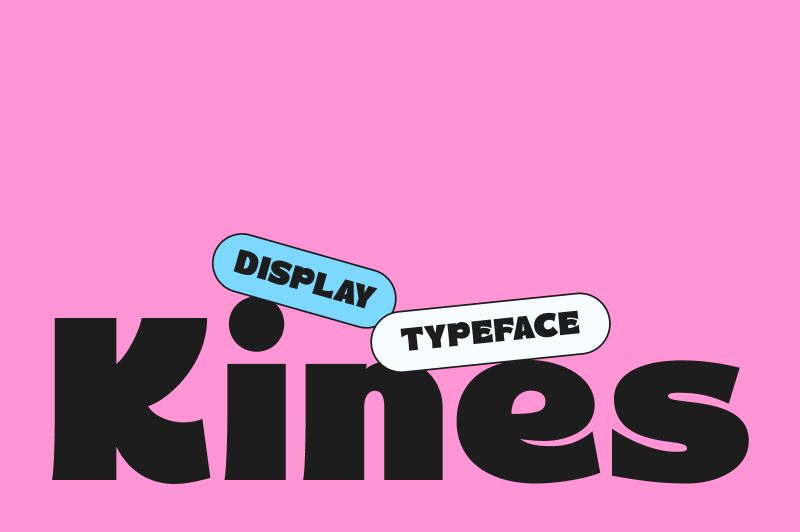
Kines font, crafted by Fitrah Type, embodies a bold and groovy spirit that instantly captivates. With its expanded design, Kines stands out with a playful yet impactful presence, perfect for grabbing attention in any visual context. The substantial weight adds a sense of confidence, making it ideal for headlines or branding that seeks to convey energy and excitement.
This unique font shines brightly in creative endeavors such as posters, digital media, and product packaging. Its lively character infuses projects with a modern vibe while maintaining versatility across various themes. Whether promoting music events or vibrant lifestyle brands, Kines elevates the overall aesthetic with its dynamic flair and appealing charm.